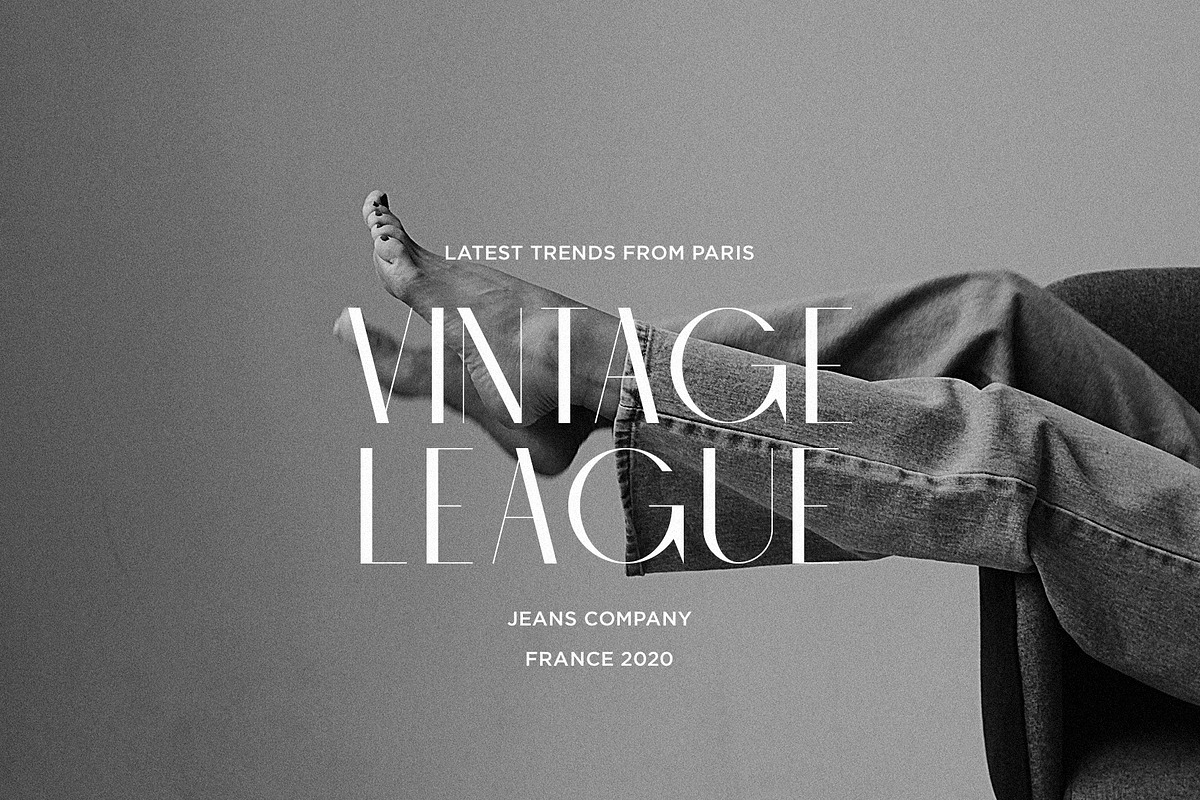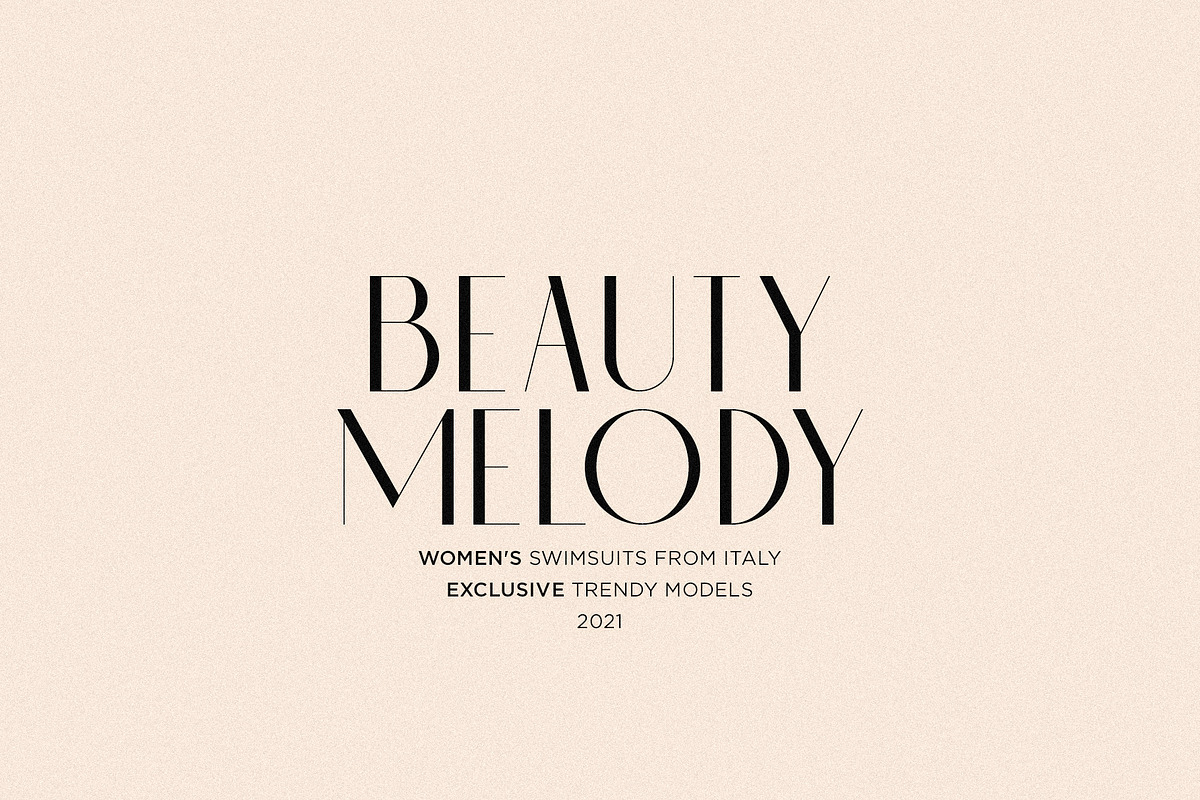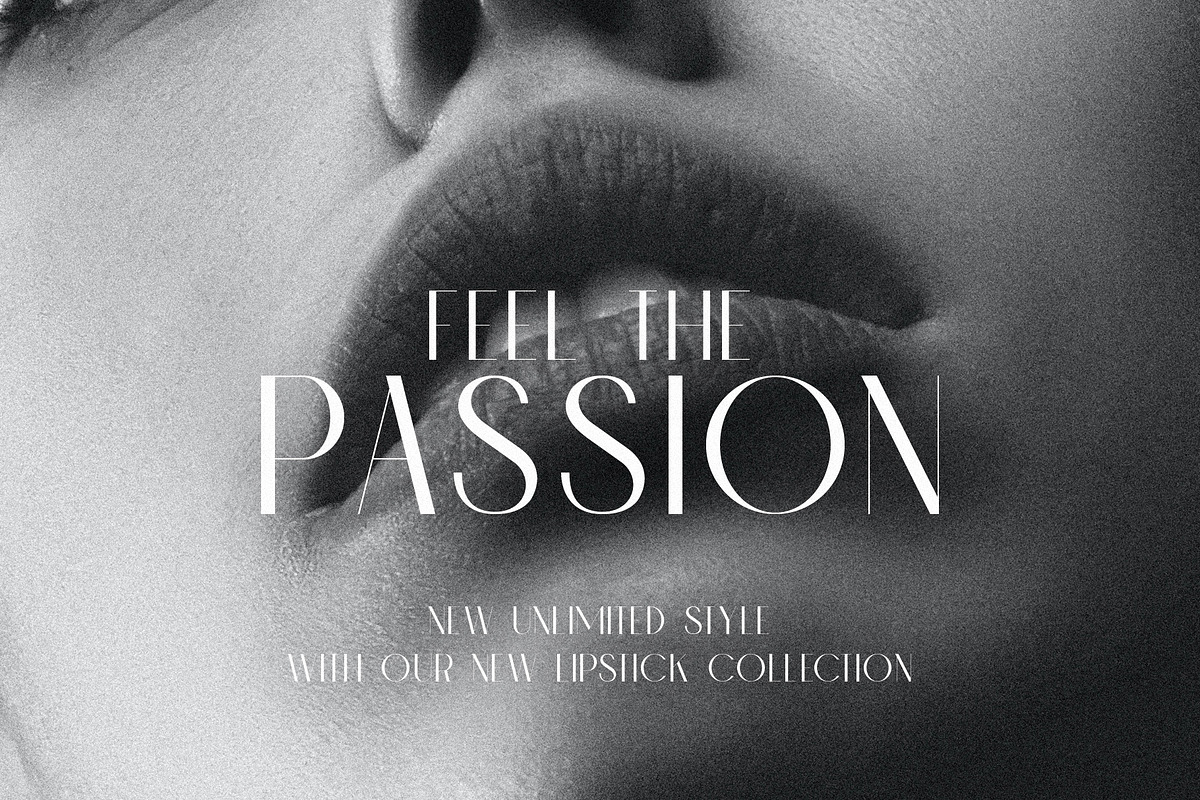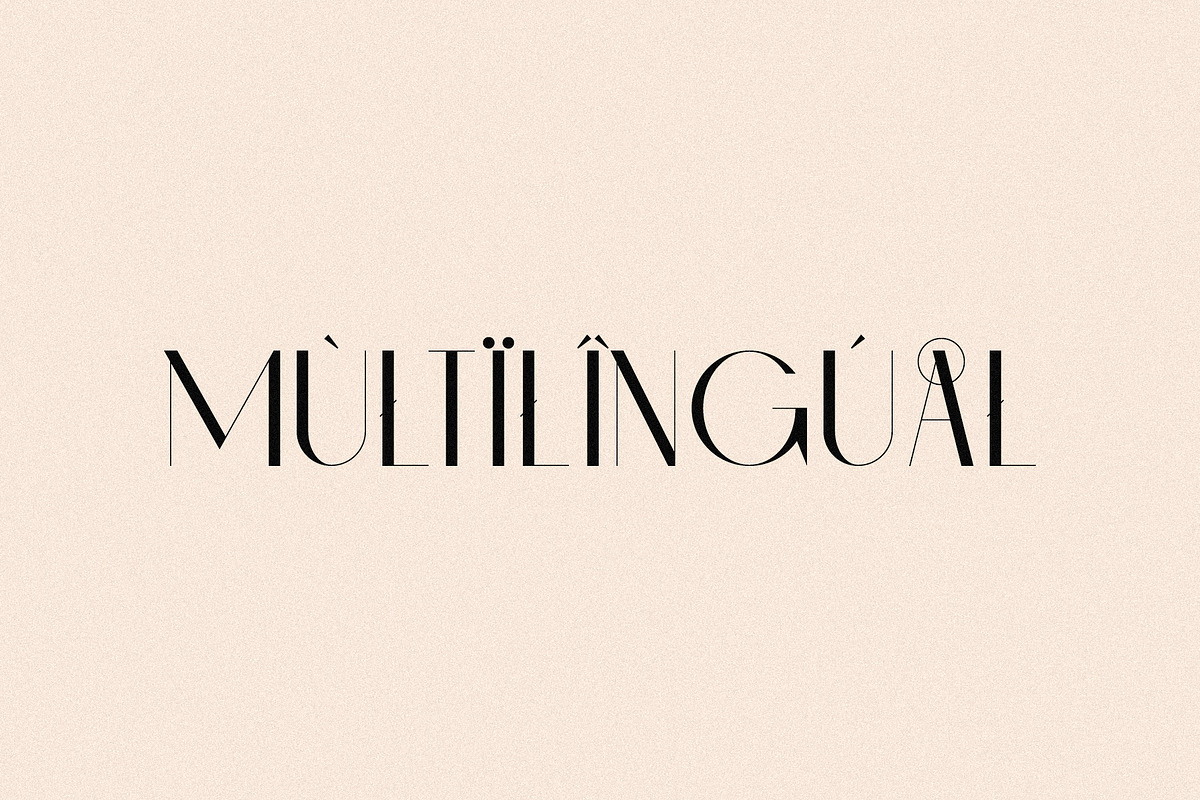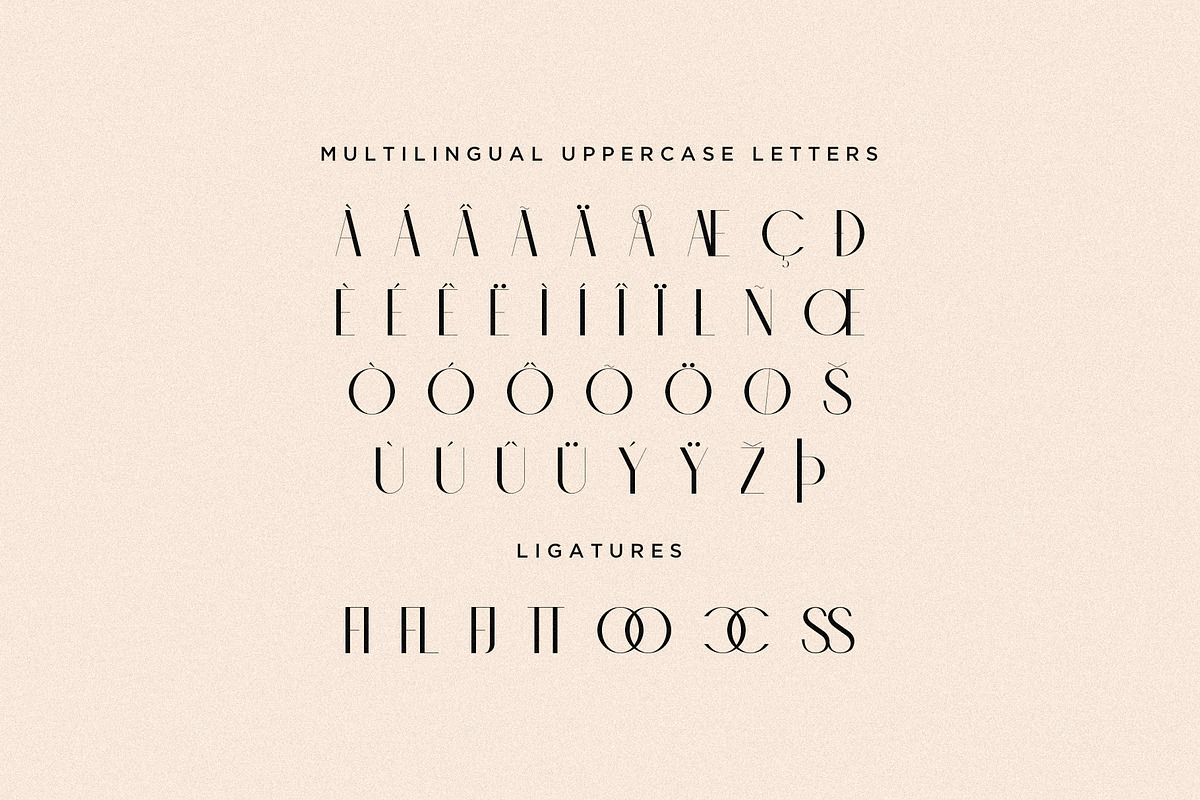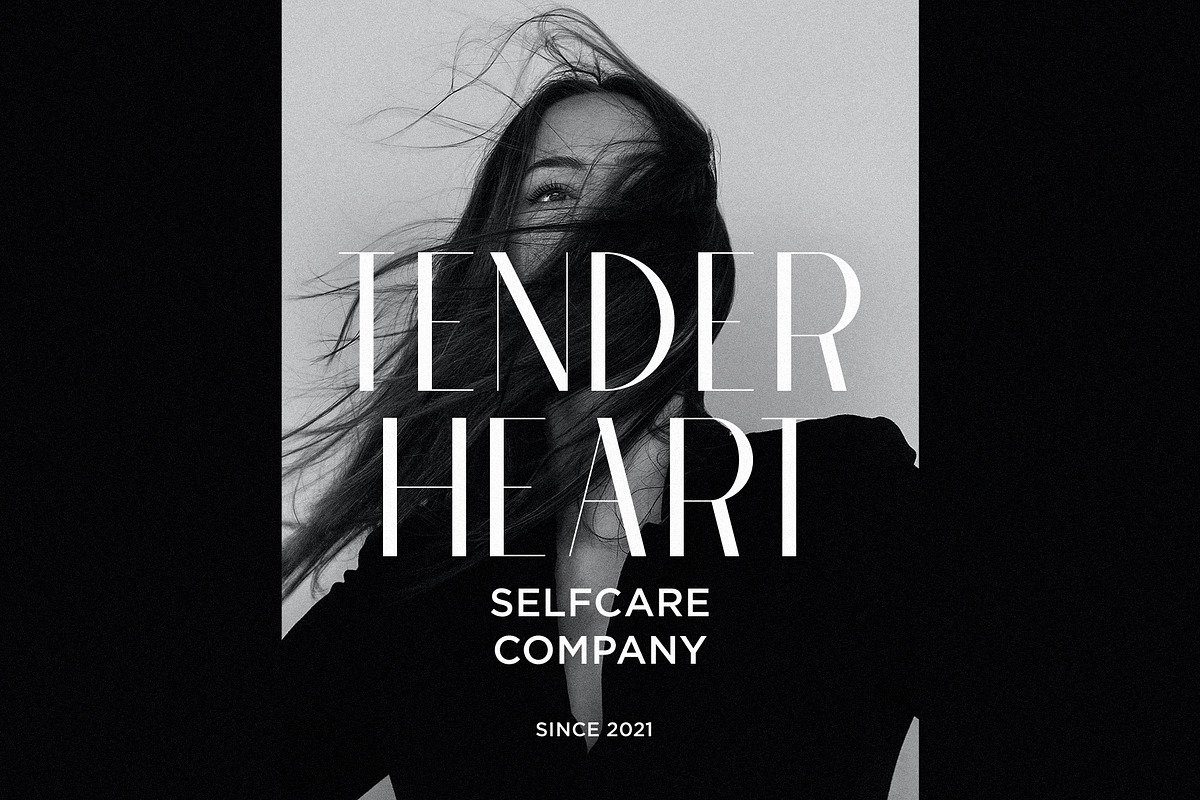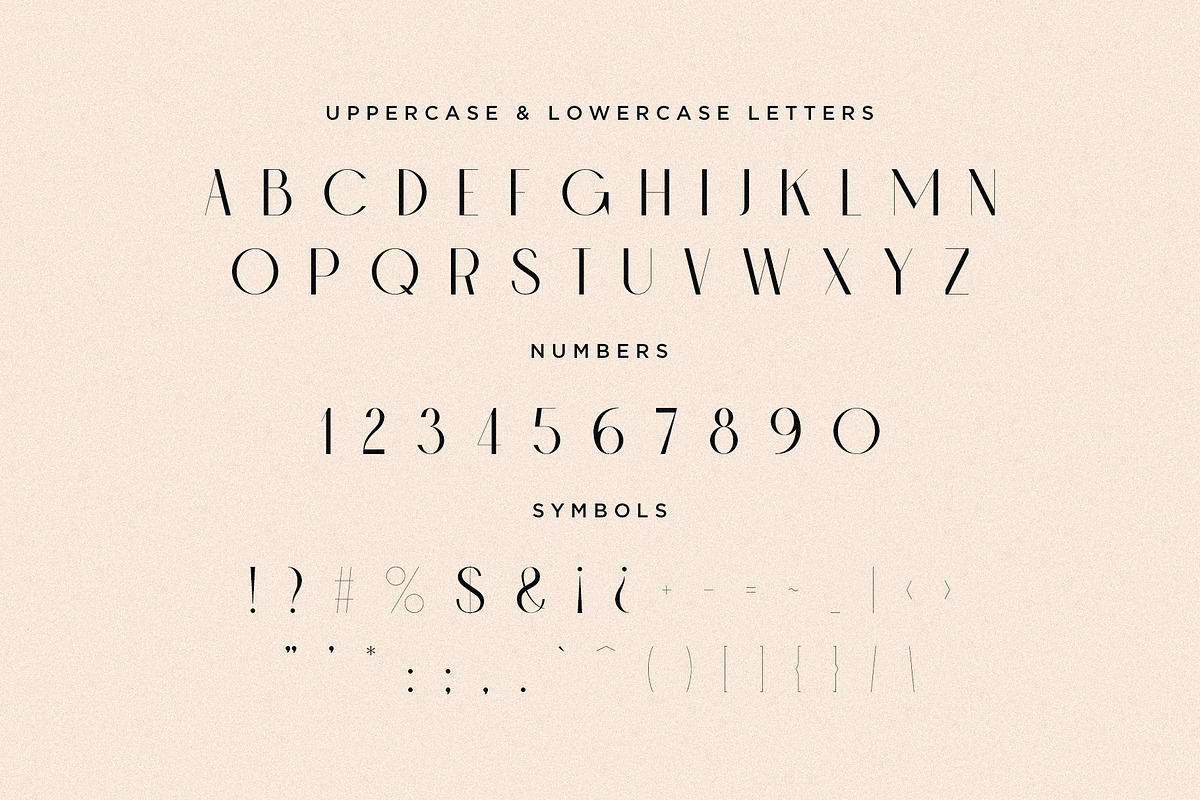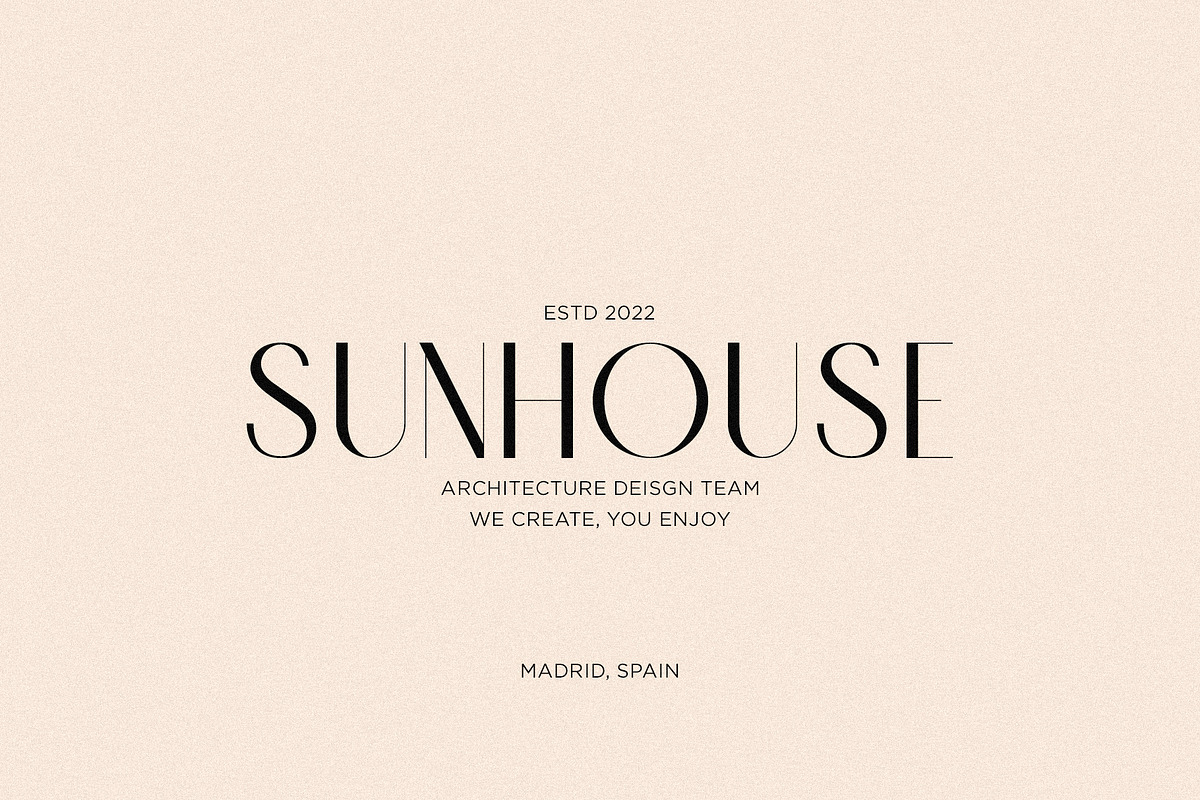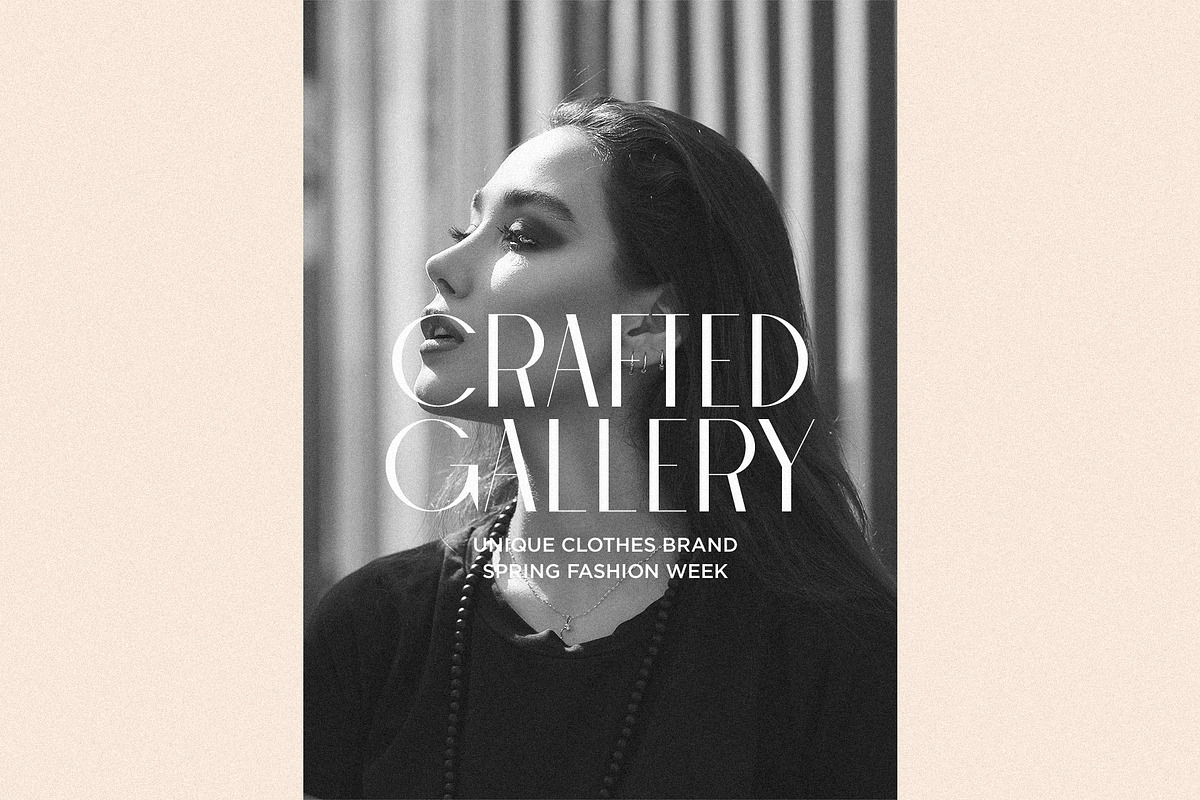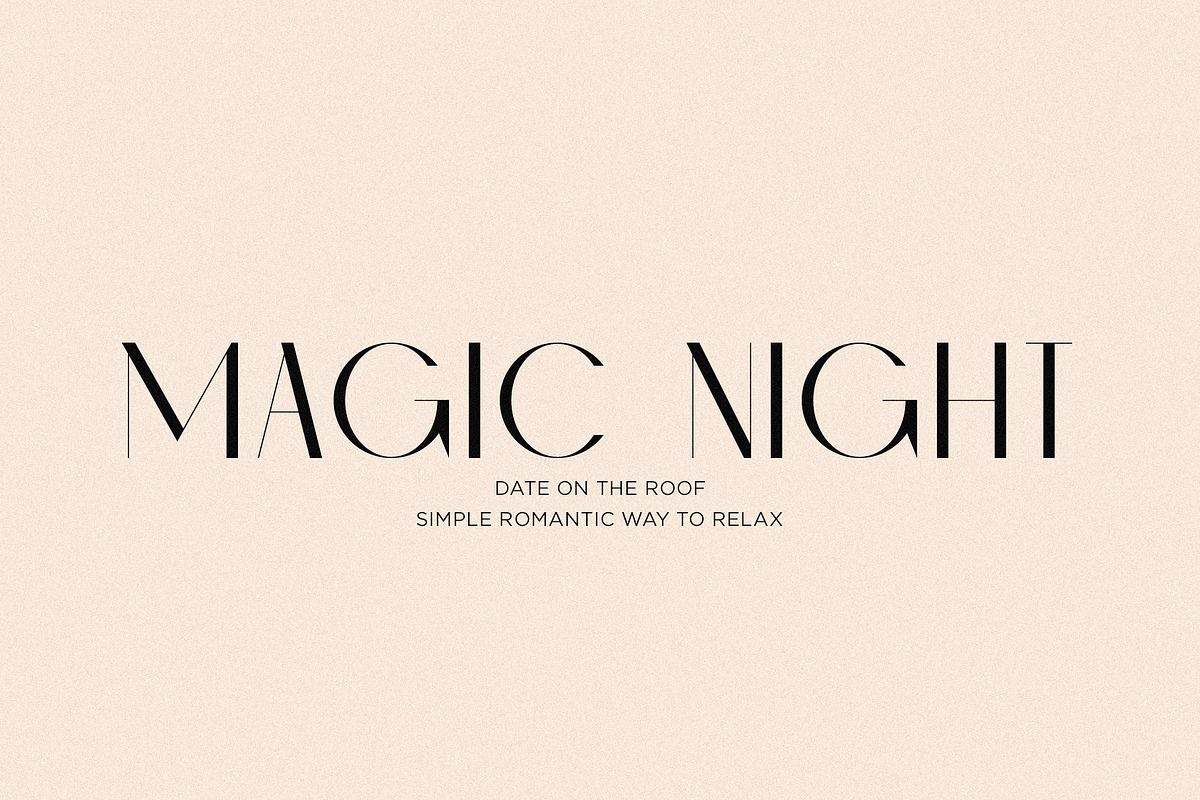
Chic - Elegant & Modern Sans Serif
Chic is an elegant and modern sans serif font with french style. Chic combines perfect mix of new and old styles. Chis was designed for fashion projects, magazine headers, logos and more.